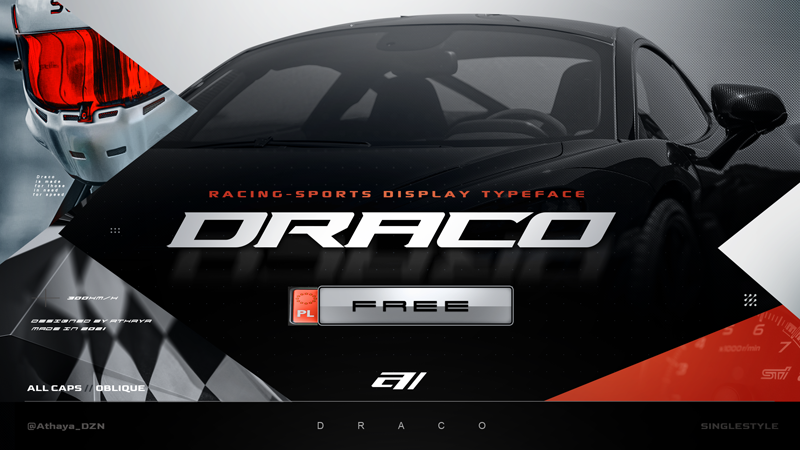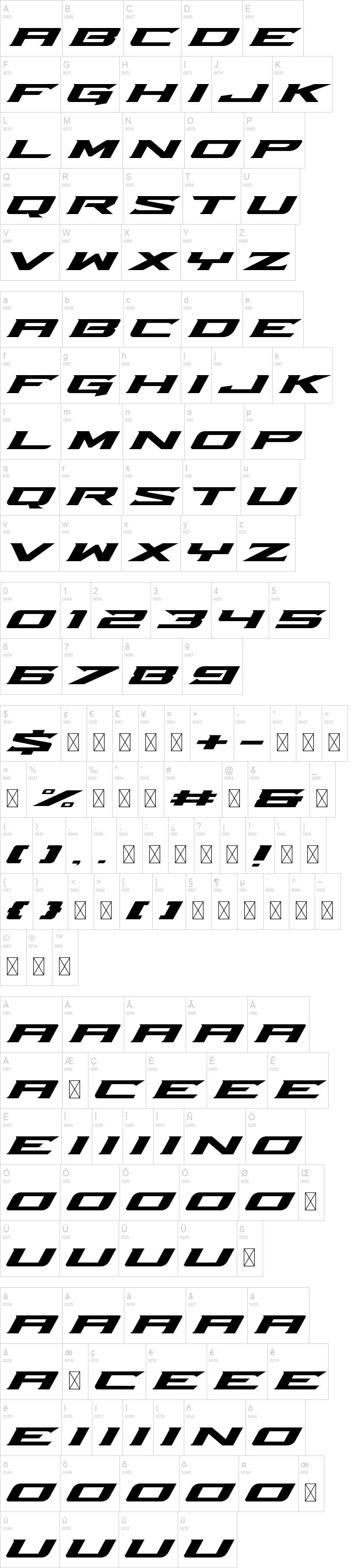
Note of the authorDraco is a bold single styled racing/sports font with multiple edges and corners, adding to its uniqueness and modern feel. Draco comes with an all-caps alphabet, numbers, and punctuations, I may add more characters in the
future. Even though Draco is made purely for speed, Draco can be used for headers, and stream graphics designs. It would be really cool for me if I see someone using Draco as a part of vehicle wrap design or anything really.
Featuring :
- 3 Corners
- Singletyle (Italic)
- Sharply rounded corners (Not just straight rounded, but I adjusted the curve to
match with the whole "fast" feel)
- Sharp serif tails